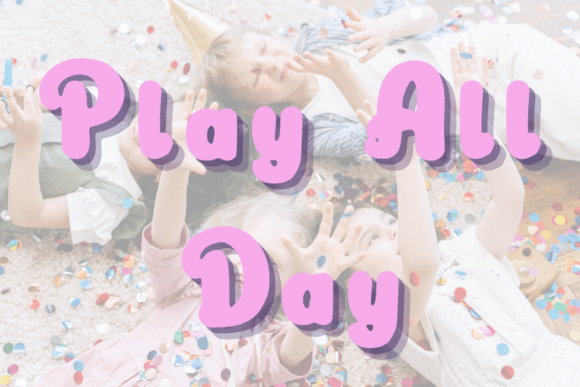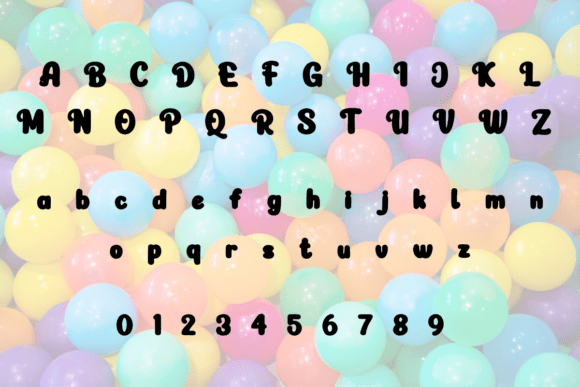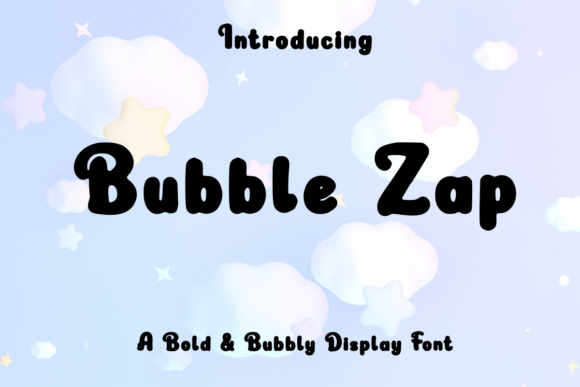
Bubble Zap Font: The Ultimate Choice for Playful and Colorful Designs
Are you looking for a font that bursts with energy and fun? Look no further than Bubble Zap, a bubbly, cartoon-inspired display font that’s perfect for a wide range of design projects. From children’s products to birthday party invitations, toys, games, educational materials, stickers, packaging, and more, Bubble Zap is the ideal choice for any playful and colorful design.
A Font that’s Full of Energy and Fun
Bubble Zap is a bold, rounded font that’s designed to grab attention while staying friendly and approachable. Its bubbly, cartoon-inspired style makes it perfect for designs that need to appeal to kids and adults alike. Whether you’re creating a fun and playful brand identity or designing materials for a children’s party, Bubble Zap is the perfect choice.
Bubble Zap is a versatile font that can be used for a wide range of design projects, including:
- Children’s products: toys, games, educational materials, and more
- Birthday party invitations and decorations
- Stickers and labels
- Packaging for kids’ products
Bubble Zap comes with a range of features and benefits that make it easy to use and versatile. These include:
- Full standard character support
- Punctuation and multilingual glyphs
- Easy to read and understand, even for young children
Why Choose Bubble Zap?
There are many reasons why Bubble Zap is the perfect choice for your next design project. Here are just a few:
- It’s fun and playful: Bubble Zap is a font that’s designed to bring a smile to people’s faces. Its bubbly, cartoon-inspired style makes it perfect for designs that need to be fun and engaging.
- It’s versatile: Bubble Zap can be used for a wide range of design projects, from children’s products to birthday party invitations and more.
- It’s easy to use: Bubble Zap comes with full standard character support, punctuation, and multilingual glyphs, making it easy to use for designers of all levels.
Tips for Using Bubble Zap
Here are a few tips for using Bubble Zap in your designs:
- Use it for headlines: Bubble Zap is a bold, attention-grabbing font that’s perfect for headlines and titles.
- Pair it with other fonts: Bubble Zap can be paired with other fonts to create a unique and interesting design. Try pairing it with a sans-serif font for a fun and playful look.
- Experiment with colors: Bubble Zap looks great in bright, bold colors. Experiment with different colors and color combinations to find the perfect look for your design.
Bubble Zap is a fun and playful font that’s perfect for designers and crafters who need a bold, attention-grabbing font for their next project. With its bubbly, cartoon-inspired style and versatile design, Bubble Zap is the ideal choice for a wide range of design projects, from children’s products to birthday party invitations and more. So why wait? Download Bubble Zap today and start creating fun and engaging designs that will delight kids and adults alike!